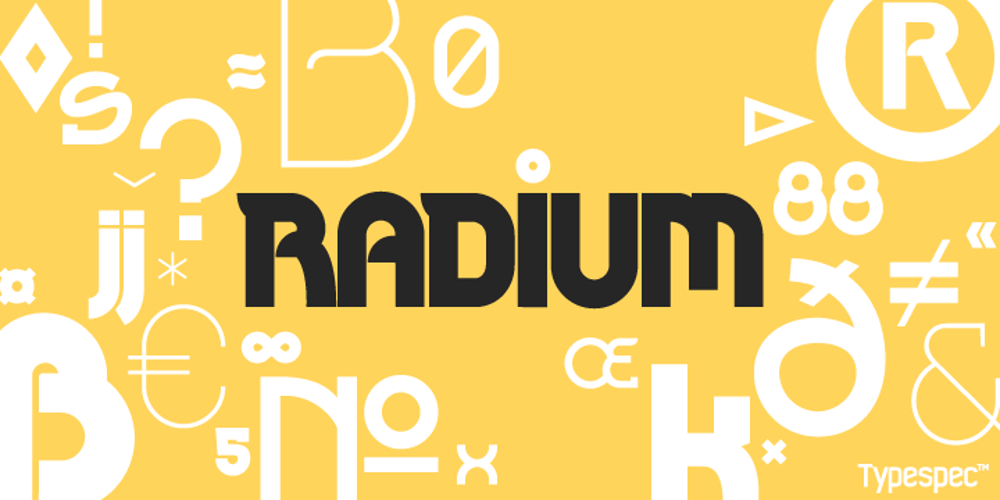
Radium
Radium font
Radium Font Family was designed by Robert Wilson and published by Typespec. Radium contains 3 styles and family package options. Radium is a futuristic display face with a robust attitude and sharp geometric ideals. Drawing inspiration from computer games, graffiti and nineties dance music, Radium is a versatile typeface for branding, posters, packaging and point of sale. Radium is available in three weights and comes in OpenType (.otf) format for Mac and Windows. Features: Radium supports the following OpenType features: Standard ligatures, discretionary ligatures, ordinals, custom fractions, numerators, denominators, superscript, scientific inferiors, proportional and tabular lining figures, and a slashed zero. Supported Languages: Each weight has a 528 glyph character set for use in the following Latin languages: Albanian, Afrikaans, Basque, Bosnian, Breton, Catalan, Croatian, Czech, Danish, Dutch, English, Esperanto, Estonian, Faroese, Finnish, French, Gaelic, German, Greenlandic, Hungarian, Icelandic, Indonesian, Irish, Italian, Latvian, Lithuanian, Luxembourgish, Maltese, Norwegian, Occitan, Polish, Portuguese, Romanian, Sami, Serbian (Latin), Slovak, Slovene, Sorbian, Spanish, Swedish, Swahili, Turkish, Walloon and Welsh.